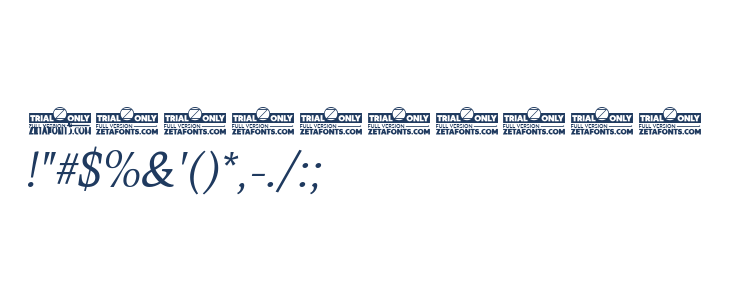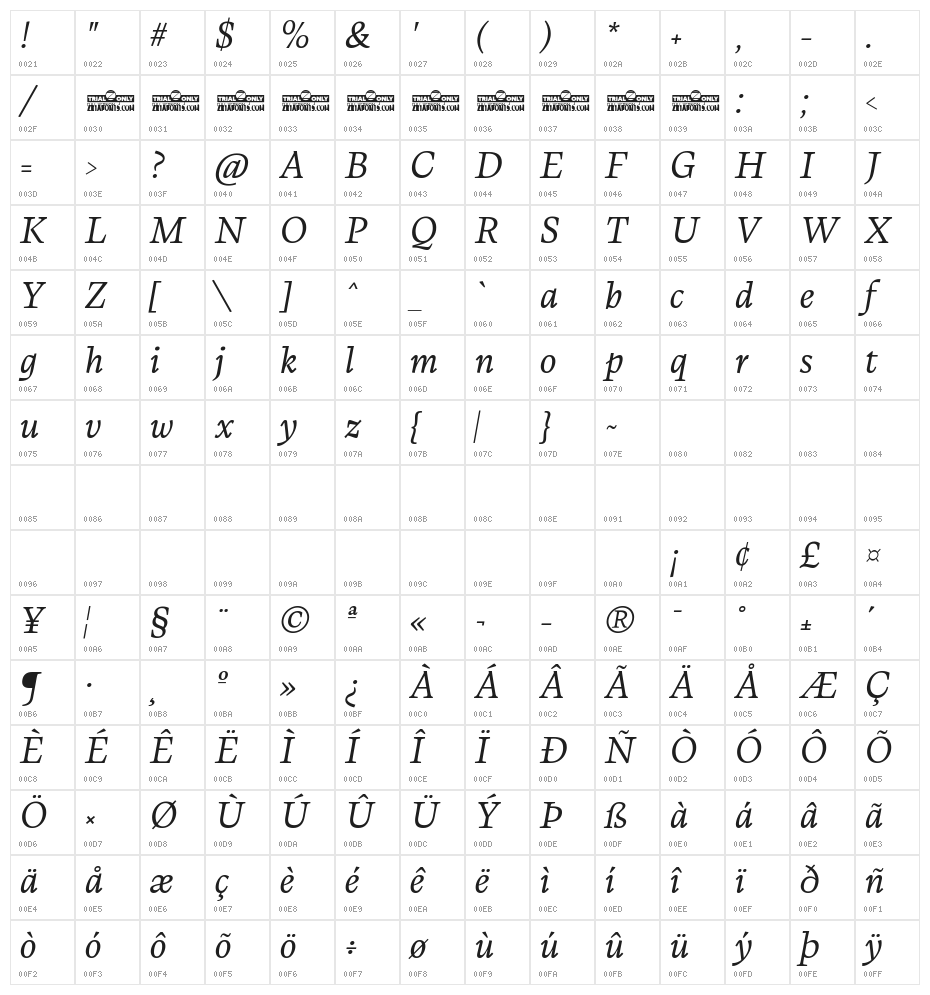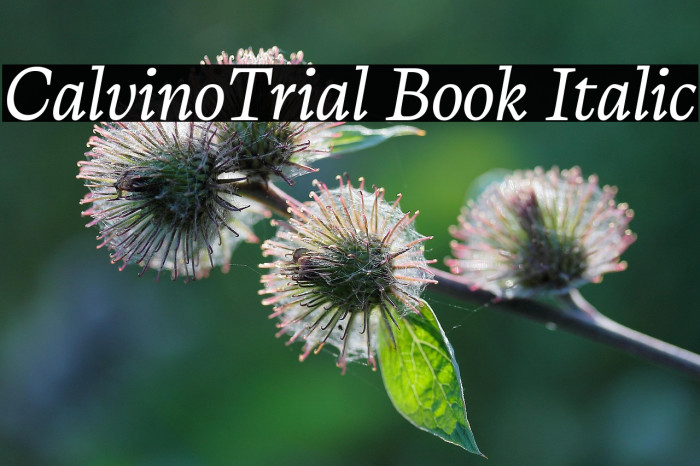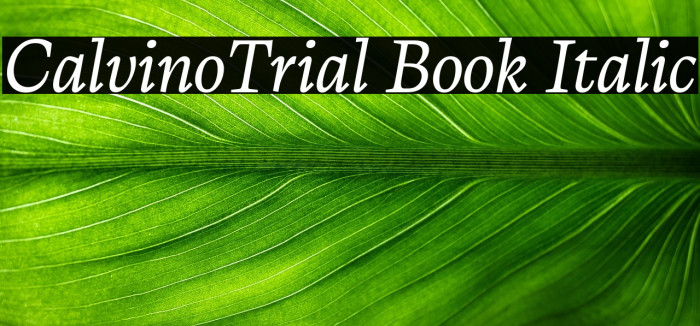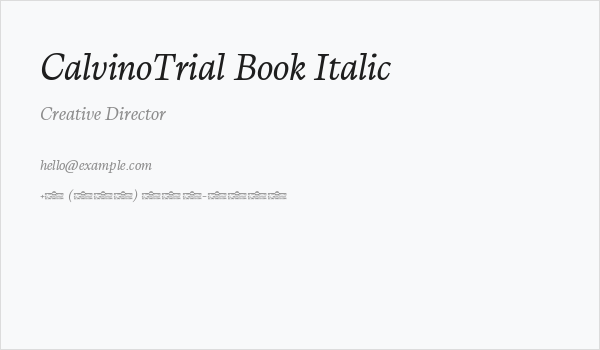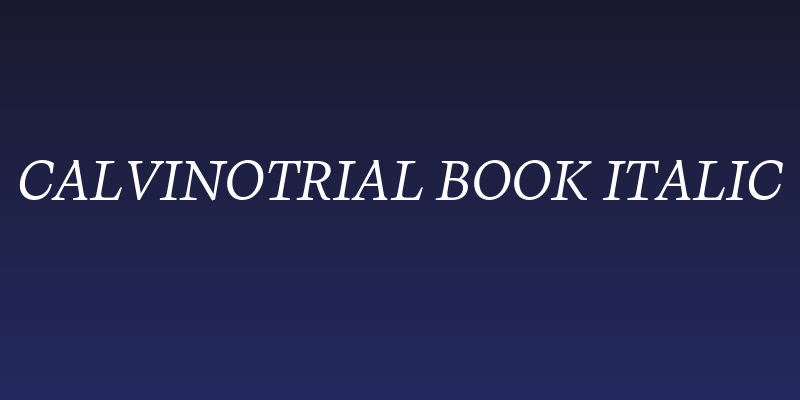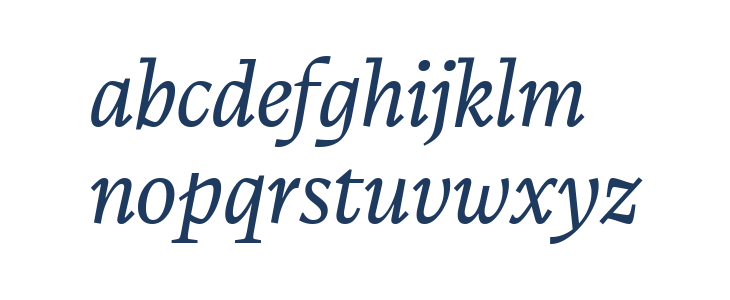
CalvinoTrial Book Italic Font
CalvinoTrial Book Italic Description
This font features a classic serif style with a distinct italic slant, giving it an elegant and sophisticated appearance. The uppercase letters are tall and stately, while the lowercase letters maintain a graceful flow. The serifs are pronounced yet refined, adding a touch of formality. The numbers and special characters are consistent with the overall design, ensuring readability and style. This font exudes a timeless quality, making it suitable for a variety of formal and professional applications.
| Use Case | Headlines, Body text |
| Proposed Projects | Ideal for book covers, formal invitations, and editorial design. |